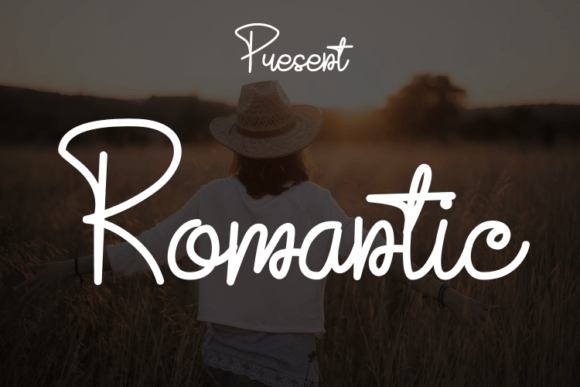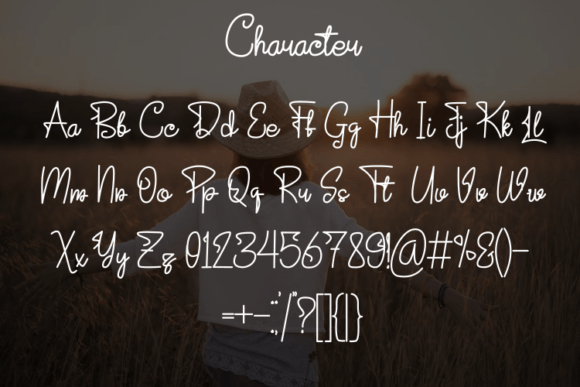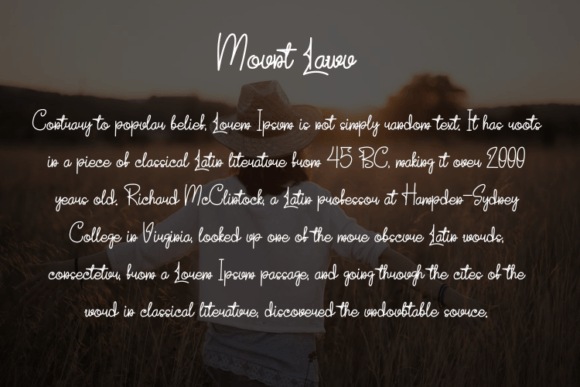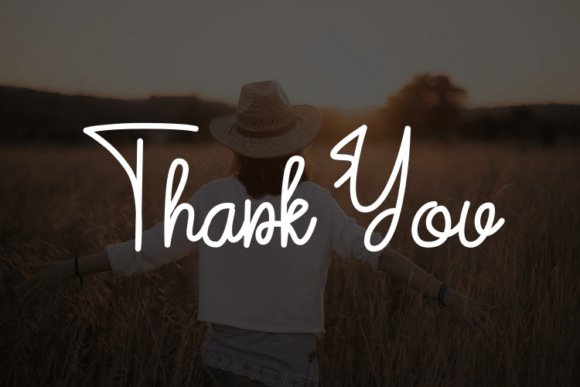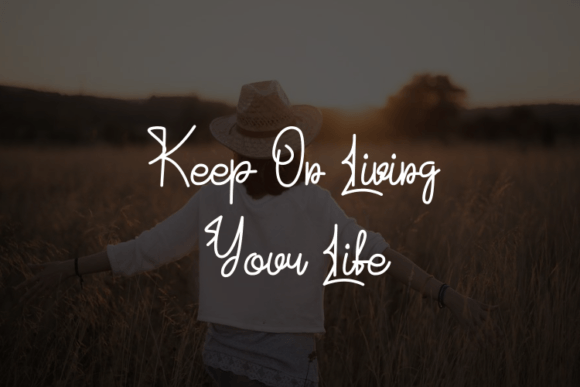
Romantic Font
Introducing “Romantic” – Your Simple and Modern Script Typeface for Elegance and Luxury!
“Romantic” is not just a font; it’s a script typeface that combines simplicity with a modern aesthetic, making it perfect for creating elegant and luxurious designs. This typeface is versatile and well-suited for a wide range of applications, including designing sophisticated logos, book or movie titles, elevating fashion brands, enhancing magazines, clothing labels, fonts, quotes, and much more.
With “Romantic,” you have access to a typeface that embodies elegance and a touch of luxury. Its modern yet timeless style adds a sense of refinement and sophistication to your text, ensuring that your designs exude class and distinction.
Imagine using “Romantic” to craft stunning and memorable logos that leave a lasting impression, design movie titles that set the mood for cinematic experiences, create fashion branding that conveys a sense of high-end style, or enhance your editorial work with a touch of modern elegance. This font’s versatility and modern look will make your projects truly exceptional.
Whether you’re an experienced designer or someone looking to add a touch of elegance to your creations, “Romantic” is your go-to typeface for creating designs that radiate sophistication and luxury.